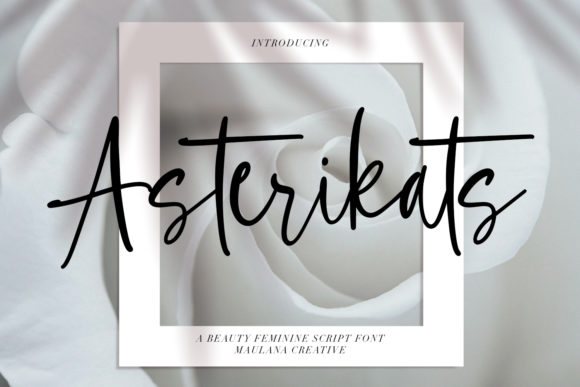
Welcome to the world of digital flavor, where your culinary creations meet their perfect storytelling companion – Asterikats Font. Embark on a journey of visual symphony, where taste buds tango with typographic brilliance. An ode to the insatiable foodie within, Asterikats is a script font that tantalizes the senses, promising an explosion of flavor right at your fingertips.
With its smooth, rhythmic flow, Asterikats captivates the eyes, urging them to dance along its elegant curves. Each letter, a meticulously crafted morsel, melts into the next, creating a visual masterpiece that enhances your digital culinary canvas. Whether you're a seasoned pro or just starting to explore the world of food blogging, Asterikats is your secret ingredient to success.
At its core, Asterikats seeks to elevate the ordinary into the extraordinary. It understands the power of words, the magic they can weave when paired with captivating visuals. Its thin, stylish, and relaxed design invites you to add a personal touch to your creations, making each post or video a reflection of your unique culinary voice.
Imagine your Instagram feed transformed into a vibrant tapestry of mouthwatering delights, each image adorned with tantalizing text that tells a tale of culinary mastery. Asterikats' effortless charm adds a layer of sophistication that sets your content apart, making it irresistible to food enthusiasts and taste adventurers alike.
But Asterikats is more than just a pretty face. It's a versatile virtuoso that adapts seamlessly to a multitude of digital platforms. From YouTube videos that sizzle with energy to blog posts that inspire the imagination, Asterikats becomes your trusted partner, enhancing your message with its charismatic presence.
So, step into the spotlight, embrace your inner culinary storyteller, and let Asterikats be your muse. Dive into a world where type meets taste, where fonts become flavors. Discover the endless variations of this beautiful script and experience the magic it brings to your digital culinary adventures.